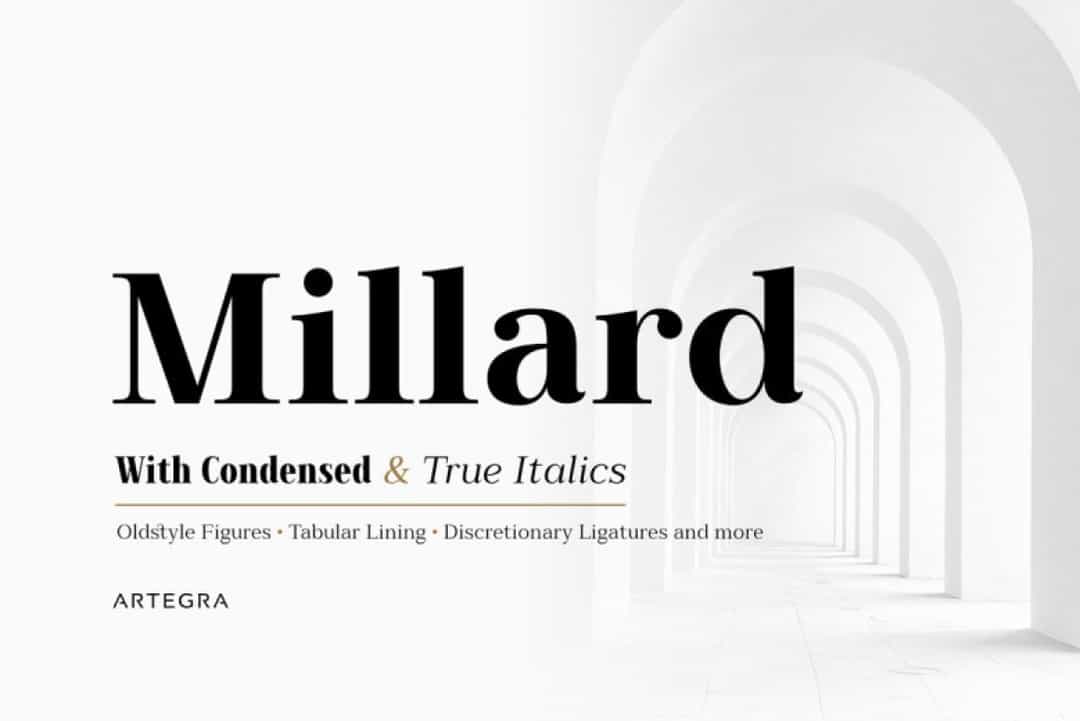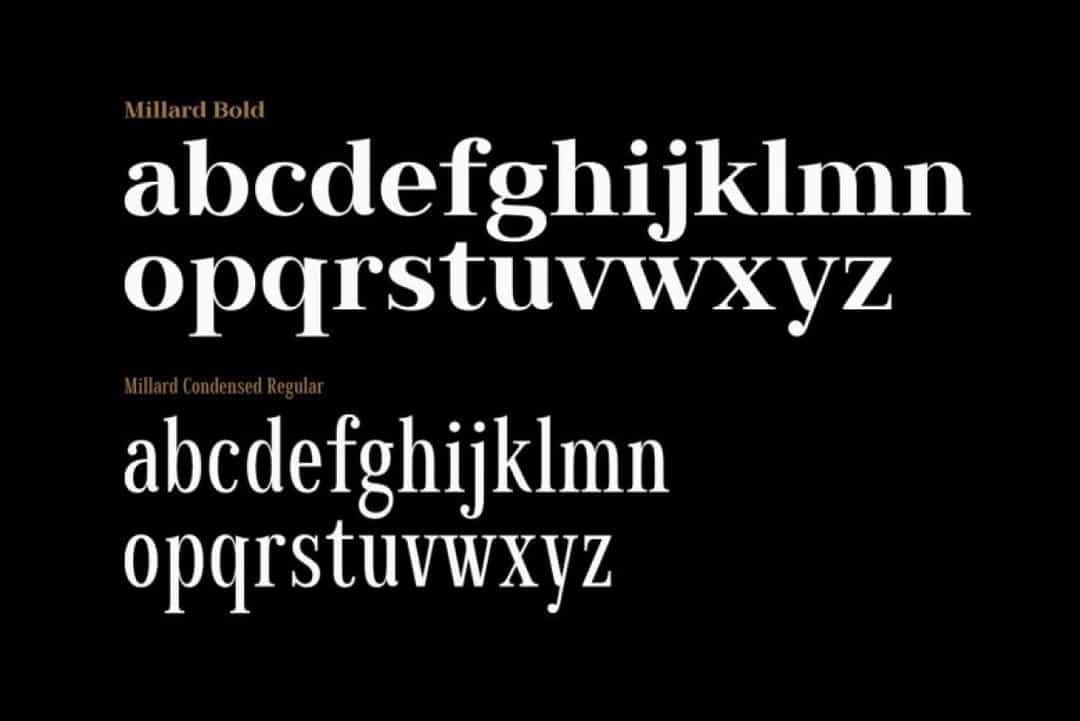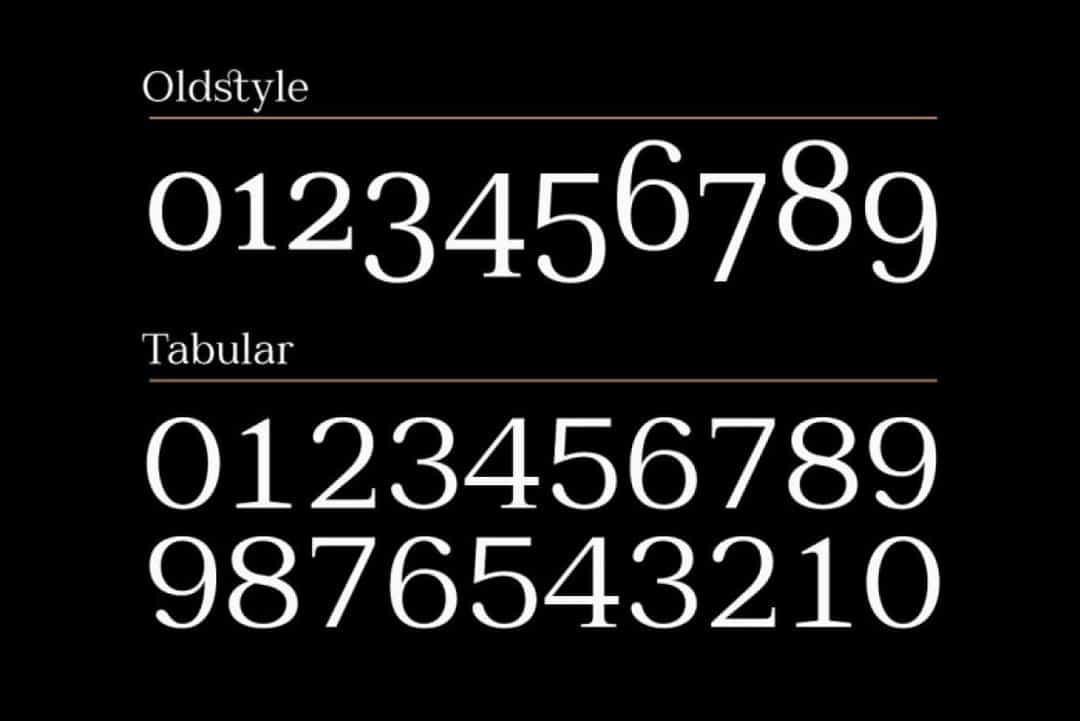
Millard offers classic serif typeface that meets modern requirements with its captivating elegance and readability, providing a range of regular, bold weights available in normal width and condensed width widths – not forgetting authentic italics!